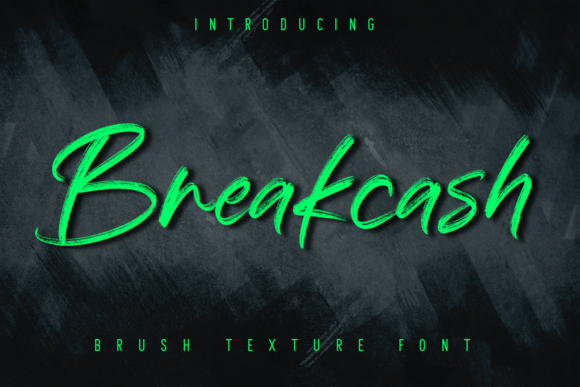
Immerse yourself in the vibrant world of Breakcash, a handwritten brush color font crafted by the ingenious minds at Kelik - 7NTypes! This extraordinary creation is a symphony of colors, dancing across your designs with a captivating charm that is sure to leave a lasting impression.
Breakcash is an artistic masterpiece, designed to unleash your creativity and ignite your imagination. It's perfect for those seeking fonts for video editing, as its vibrant hues and dynamic strokes will bring your videos to life with an explosion of visual intrigue.
Step into a world where fonts come alive, where every letter is a brushstroke of artistry, and every word a masterpiece. Breakcash is not just a font; it's an experience. It's a journey through a kaleidoscope of colors, where your designs take on a life of their own.
With Breakcash, you'll discover a boundless realm of creative possibilities. Create stunning logos that demand attention, design eye-catching posters that captivate audiences, craft mesmerizing social media graphics that ignite engagement, and produce awe-inspiring video content that leaves viewers spellbound.
Breakcash is more than just a font; it's a transformative force that elevates your designs to new heights of brilliance. Its colorful strokes and graceful curves will add a touch of magic to your projects, leaving your audience mesmerized and inspired.
Embrace the boldness of Breakcash and watch as your creative visions come to life in a symphony of colors. Unleash the power of this extraordinary font and redefine the boundaries of design excellence. Breakcash is ready to ignite your imagination and take your projects to stratospheric heights.